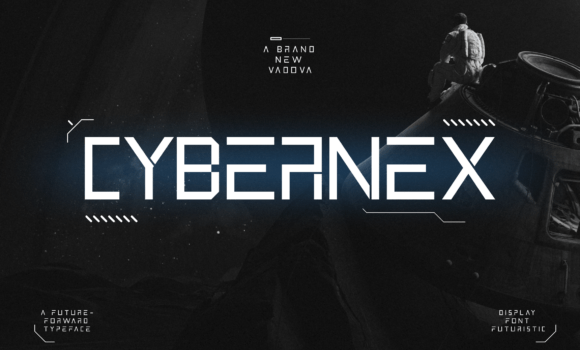
cybernex
Cybernex Font - Featured Image
Cybernex Font – Free Download Introduction to Cybernex Font Cybernex is a futuristic display font built with sharp geometric forms and a clean all-caps structure inspired by modern technology, space exploration, and sci-fi aesthetics. 📸 Preview Gallery 6 images 📌